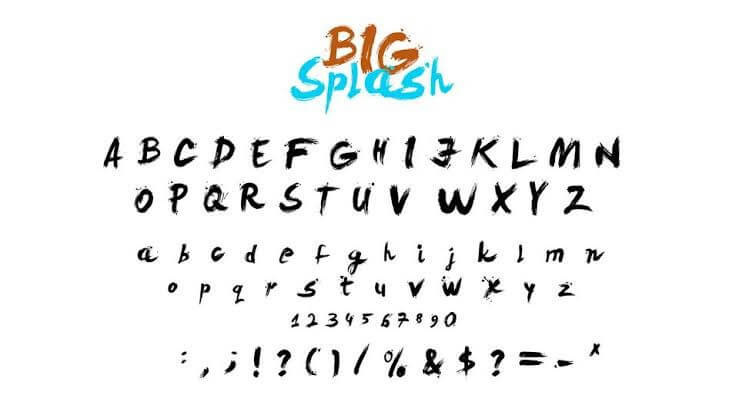
Big Splash Font
Big Splash Font became inspired through antique posters and signage. It’s far a brush and splatter typeface and has exceptional readability. It’s the best choice used for logos and titles on the page.
Its a great pairs with fancy and graphics fonts. And there are 18 distinctive patterns to become serif fonts are associated with formal, elegant and conventional feeling.